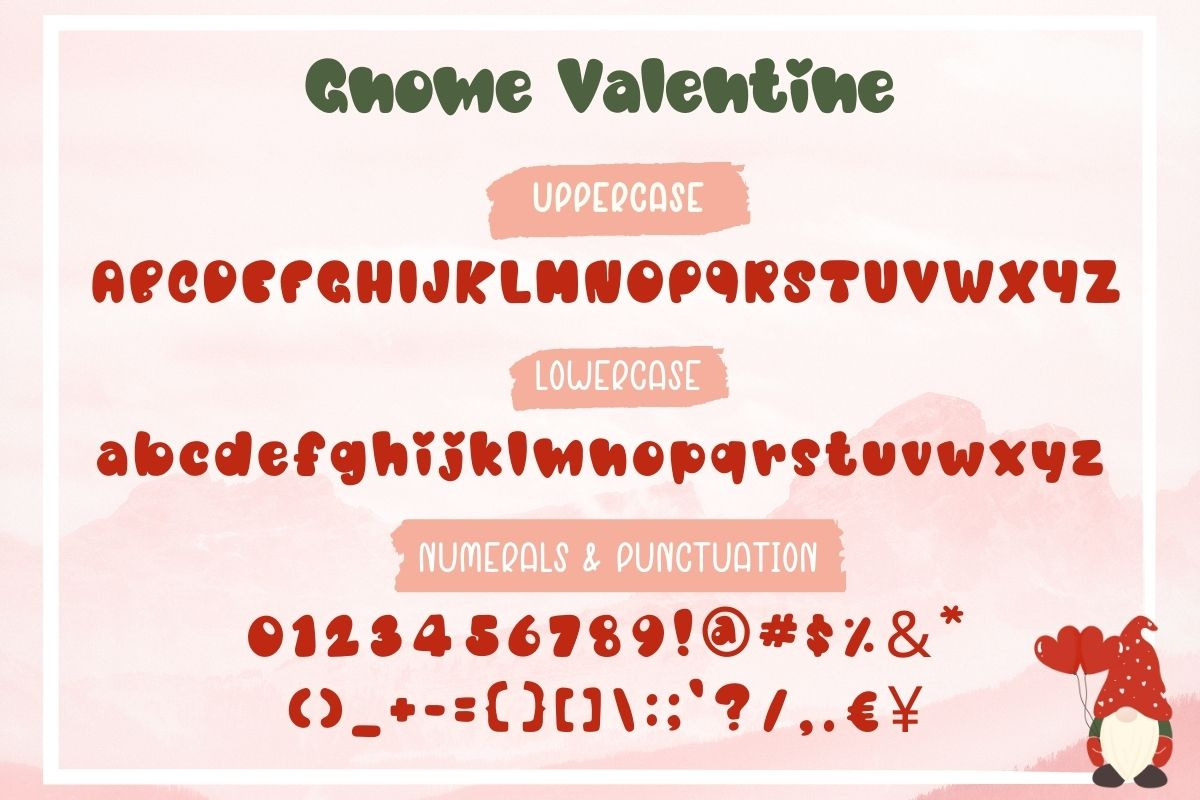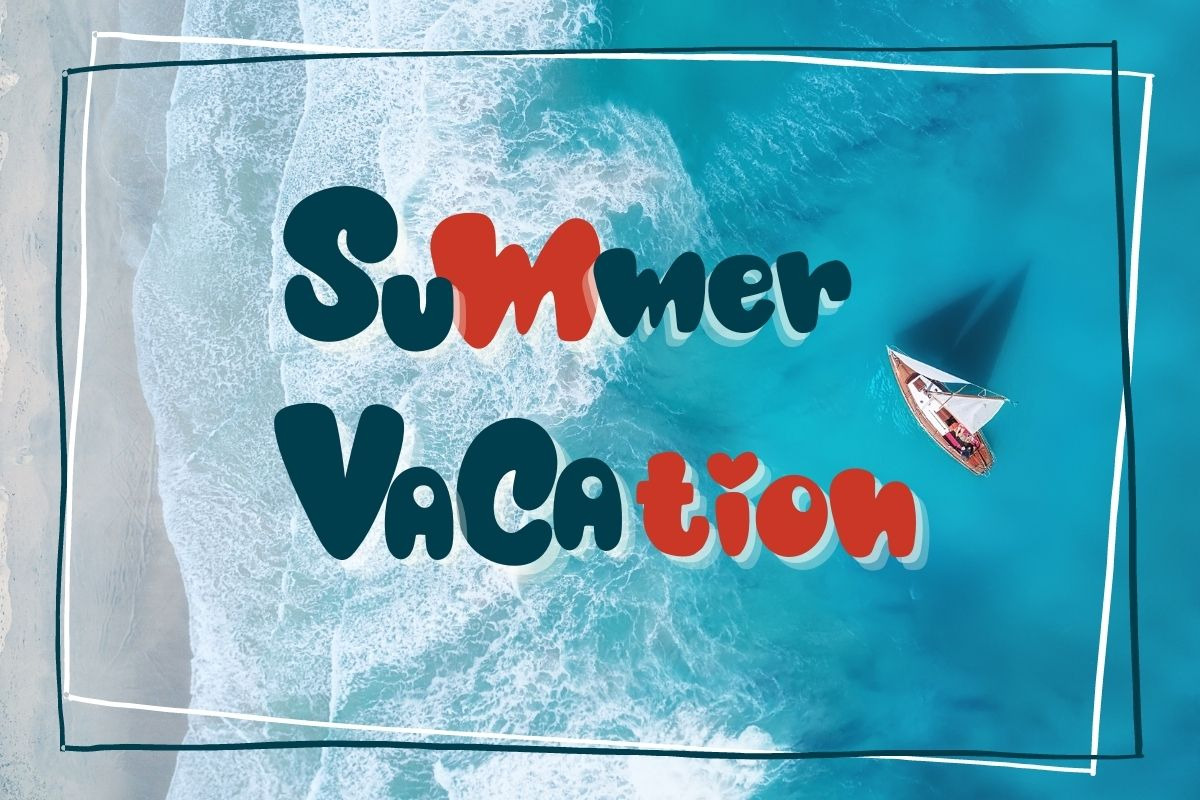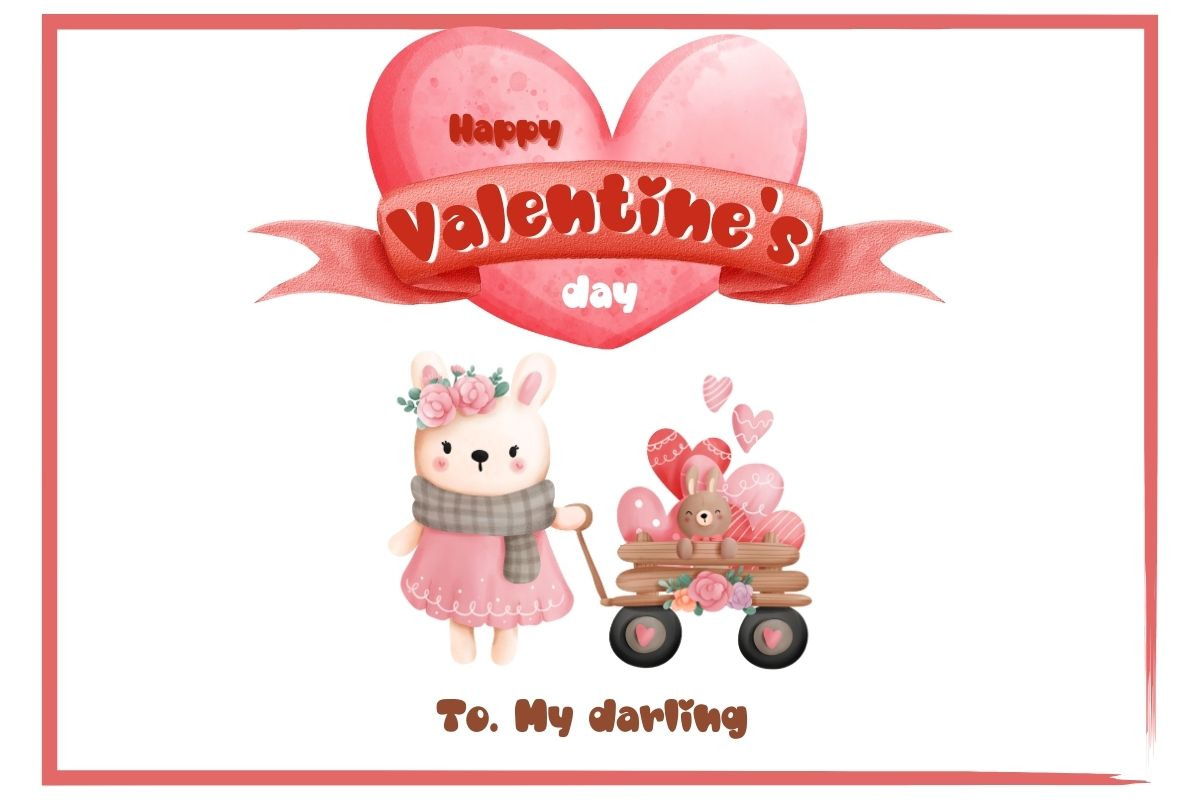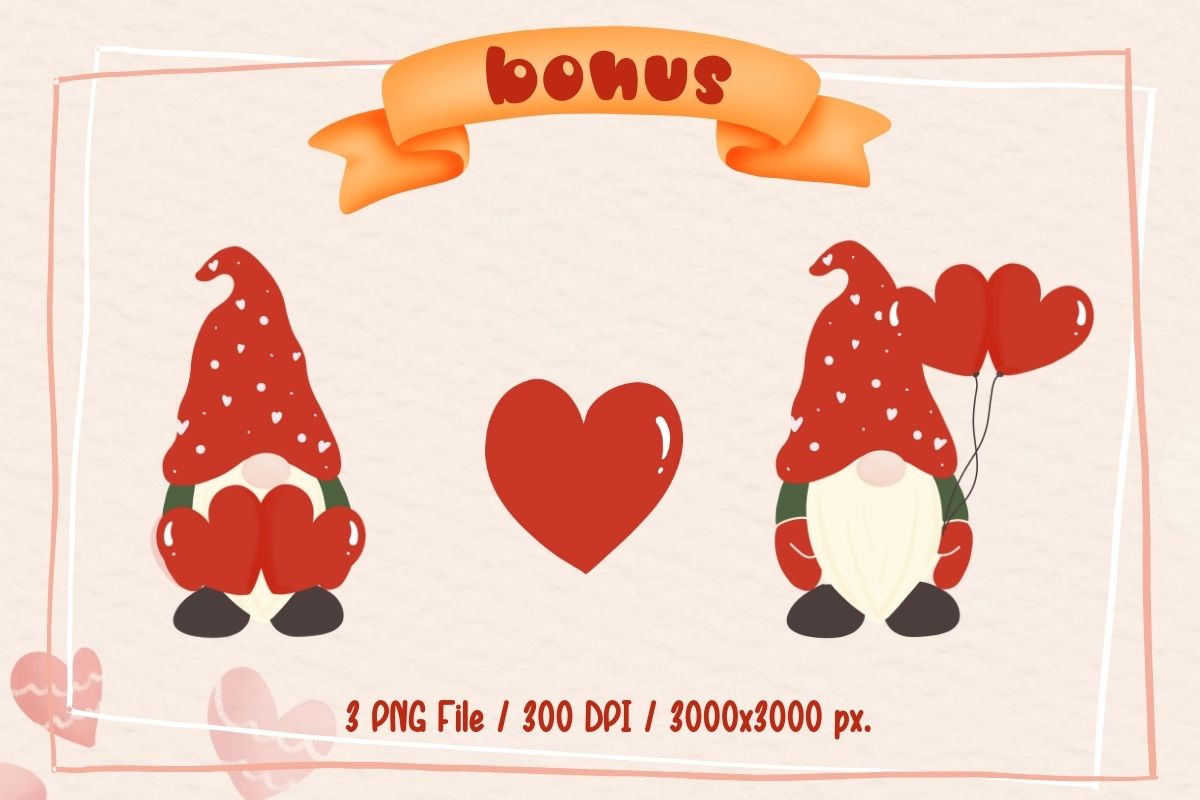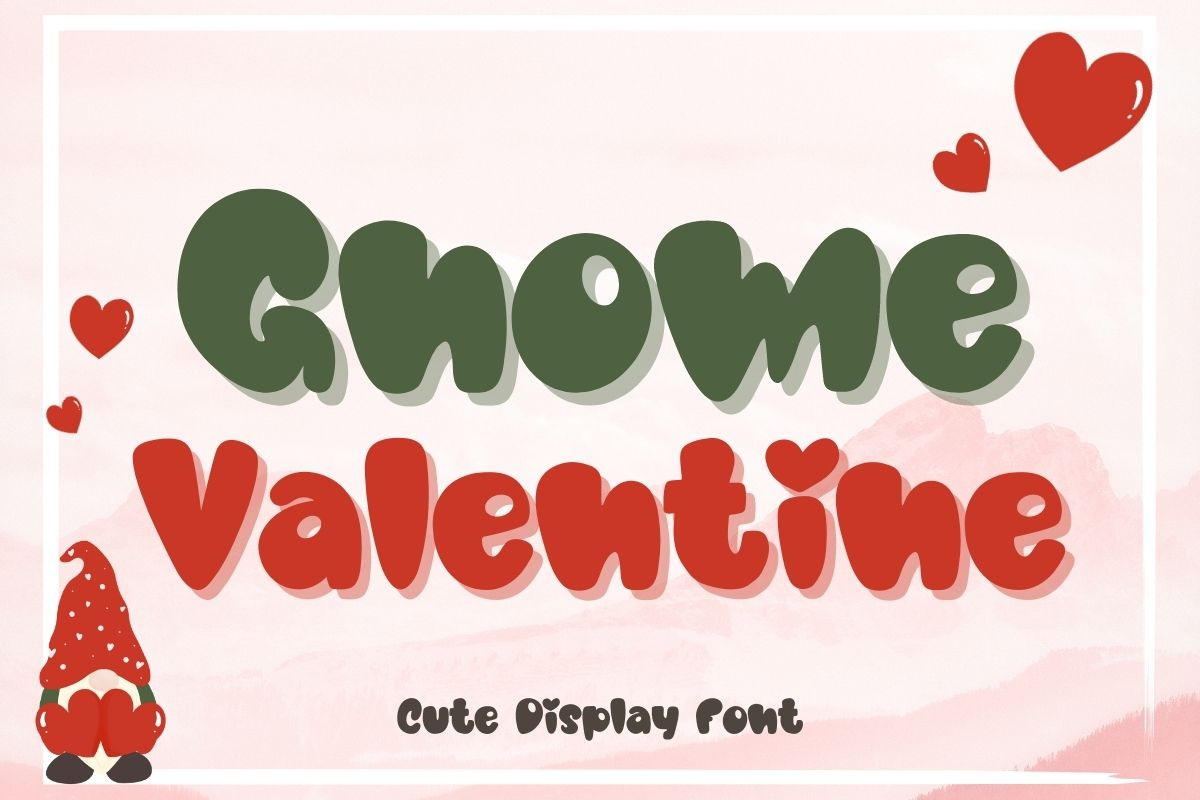
Gnome Valentine Font
Gnome Valentine is a cute and slightly quirky display font. With its casual charm, this font is perfect for a wide pool of design ideas and products such as banners, mugs, cards, shirts, stationery, social media posts, and more!